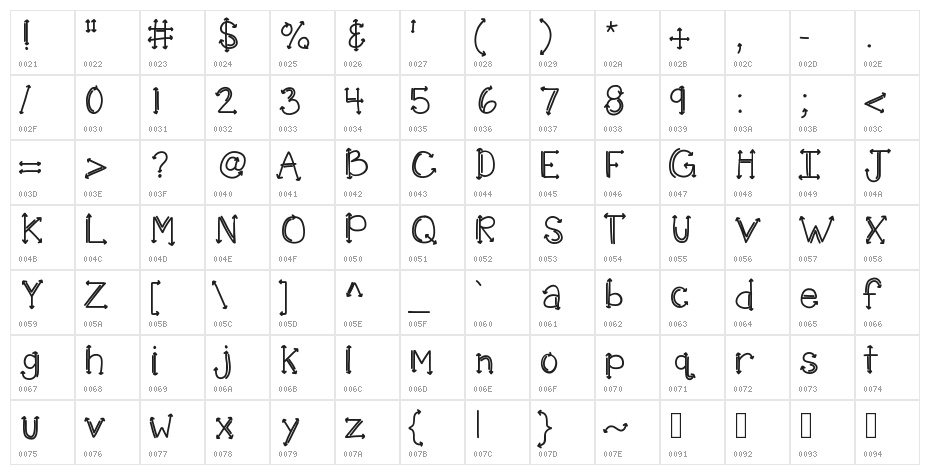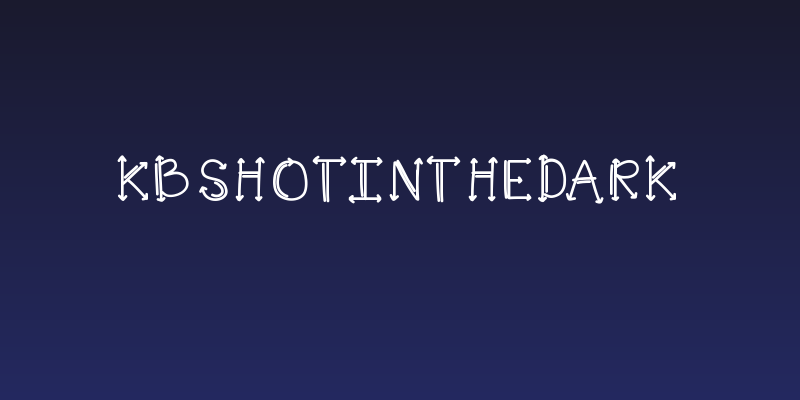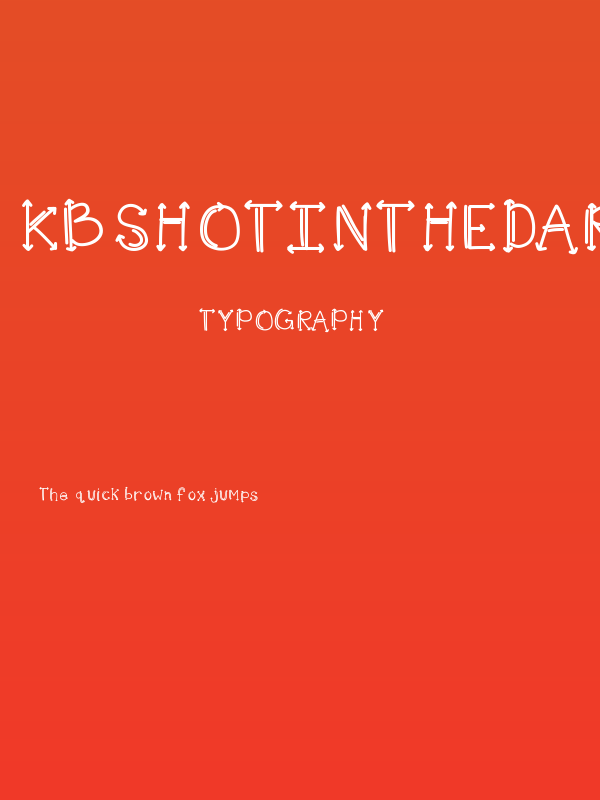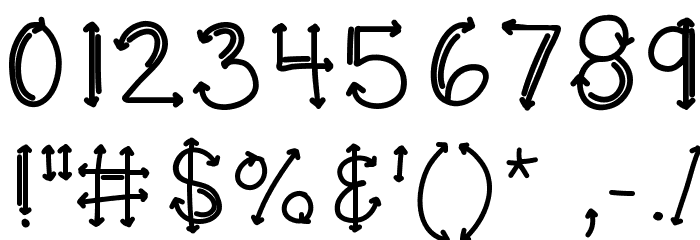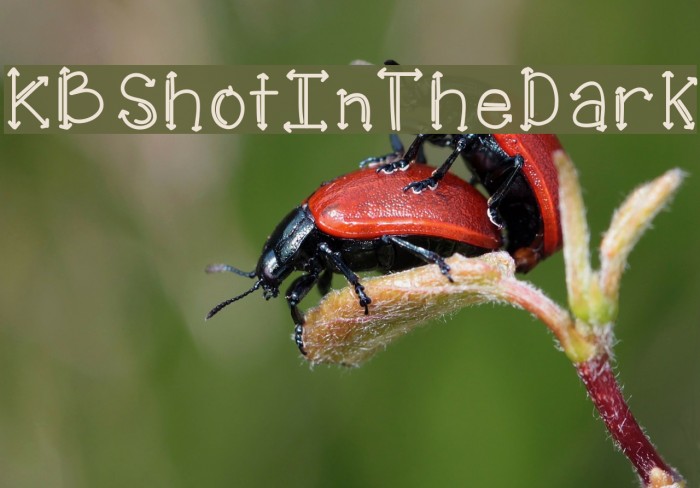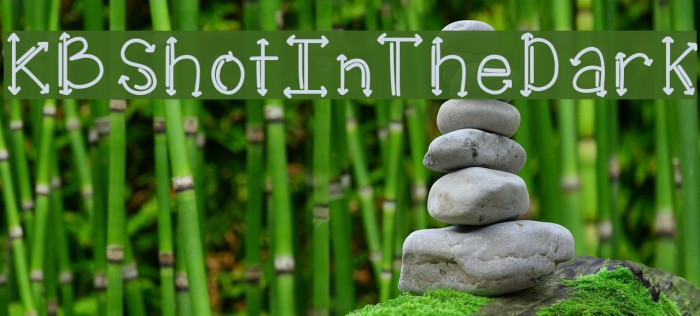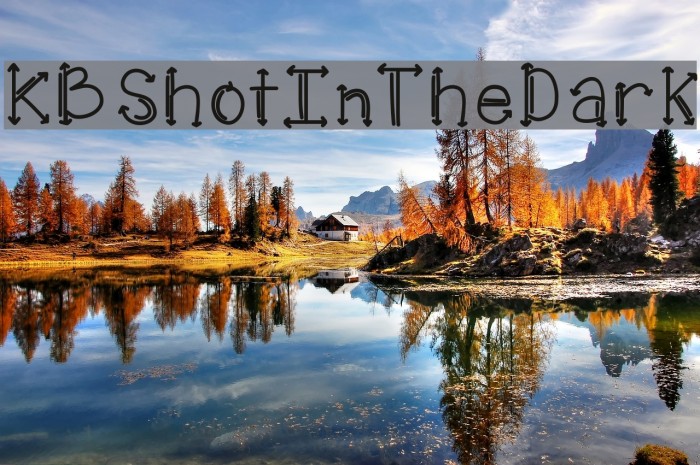
KBShotInTheDark Font
KBShotInTheDark Description
This font features a playful and whimsical design with unique arrow-like serifs that extend from the ends of each character. The strokes are consistent in width, giving it a uniform appearance, while the decorative elements add a touch of creativity and fun. The characters are well-spaced, ensuring readability despite the intricate design. This font is ideal for projects that require a light-hearted and engaging aesthetic, such as children's books, playful branding, or creative posters. Its distinct style makes it stand out, capturing attention with its quirky and imaginative flair.
Fonts by Khrys Bosland
| Overall Style | Whimsical, Playful |
| Proposed Projects | Children's books, playful branding, creative posters, invitations. |